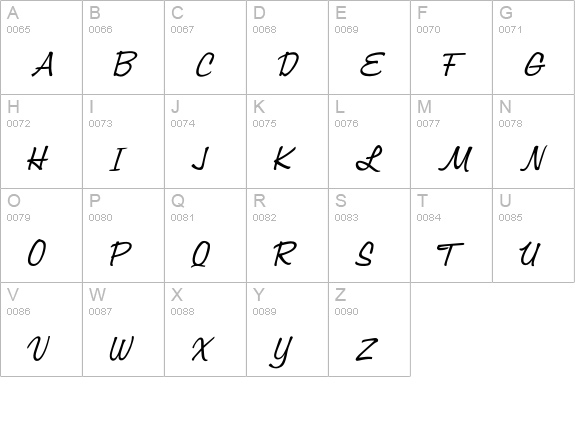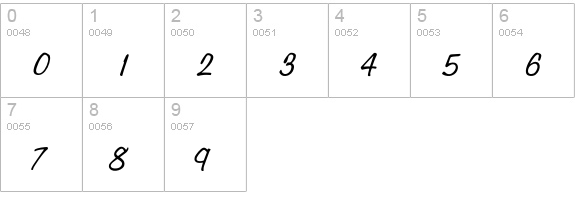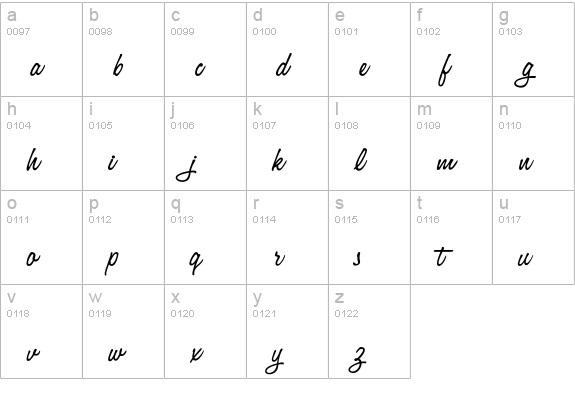
Louisiana Font Details
Louisiana font is a modern and versatile typeface that exudes elegance and sophistication. With its clean lines and balanced proportions, this font is perfect for a wide range of design projects, from branding to editorial layouts. Inspired by the rich cultural heritage of Louisiana, this font captures the spirit of the Southern state with its unique flair. The best part? Louisiana font is completely free to download at FontsMarket.com. Whether you're a professional designer looking for a fresh new font to add to your collection or a hobbyist experimenting with typography, Louisiana font is a must-have addition to your toolkit. Don't miss out on this fantastic opportunity to enhance your designs with this stylish and eye-catching typeface. Download Louisiana font today and let your creativity soar!